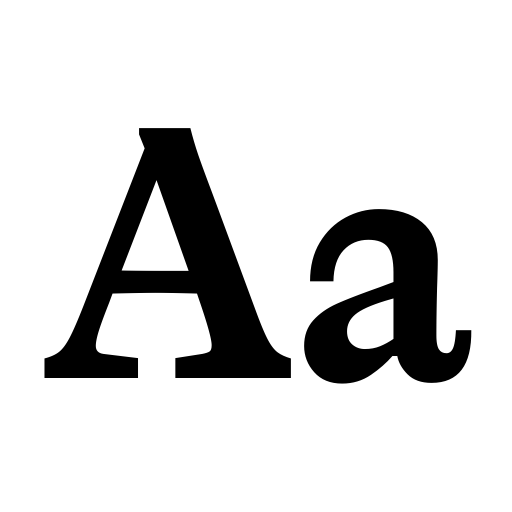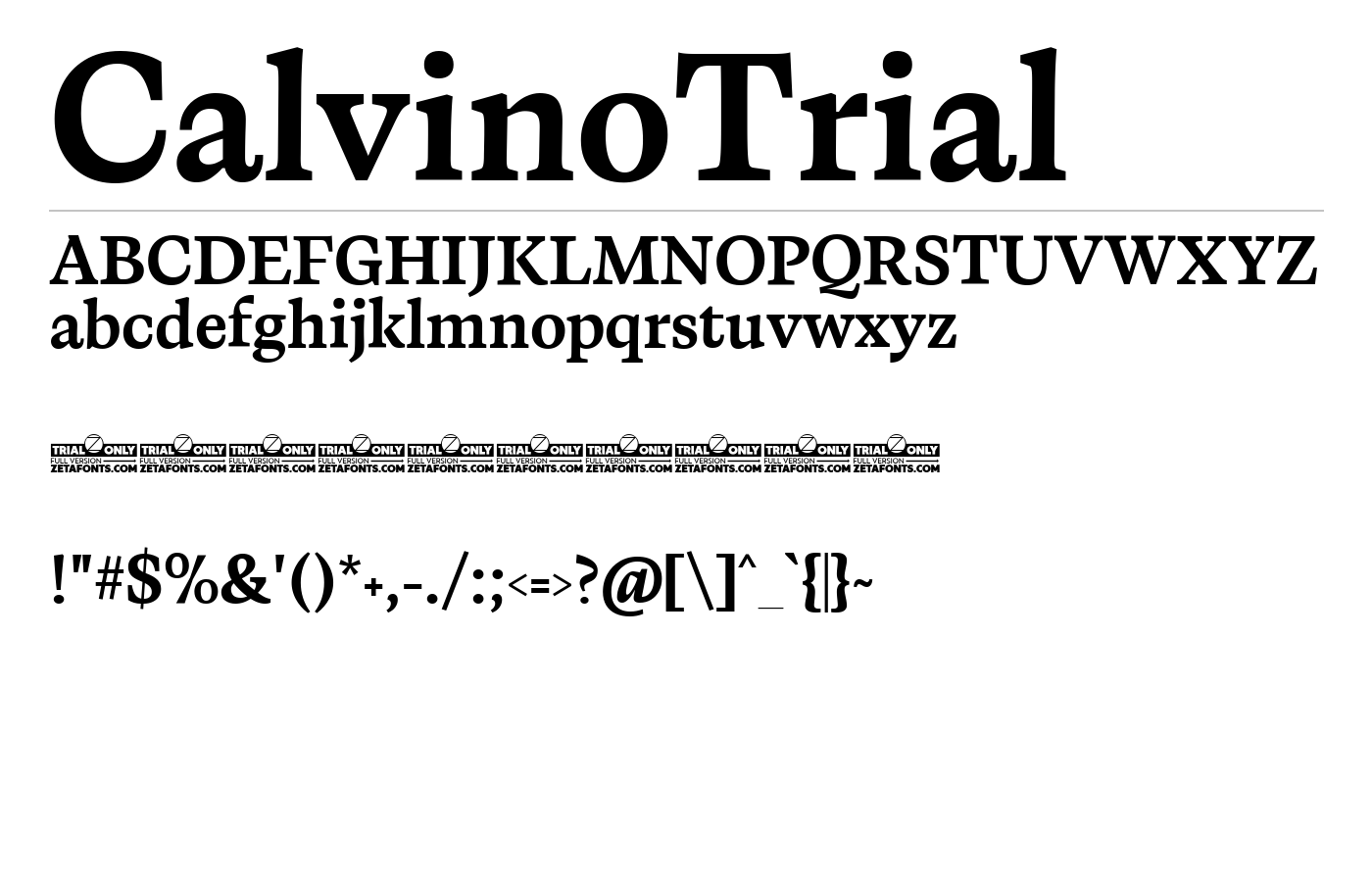
CalvinoTrial is a classic serif font with a strong, confident presence characterized by its medium weight, upright stance, and distinct bracketed serifs. Its clean, readable letterforms combine subtle contrasts between thick and thin strokes with traditional shapes like double-story ‘a’ and ‘g,’ making it ideal for elegant editorial design, formal branding, and refined headlines. This font conveys a timeless, professional feel that works well for magazines, packaging, and sophisticated corporate identities.
CalvinoTrial Font
About CalvinoTrial Font
| Designer | Andrea Tartarelli |